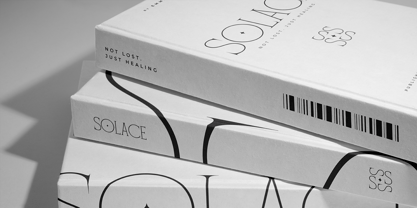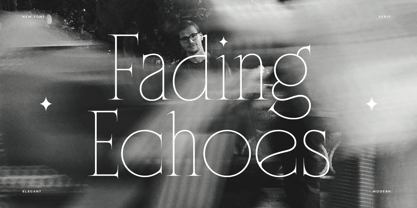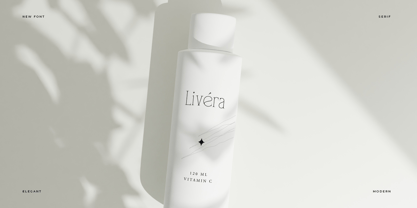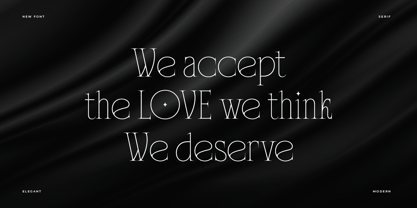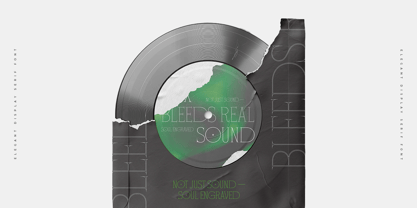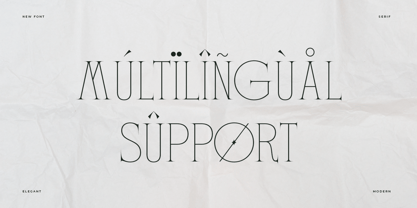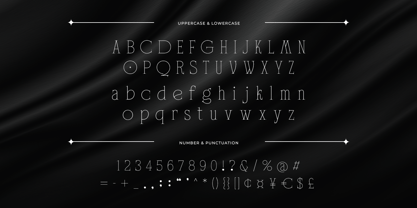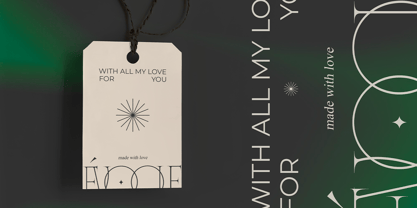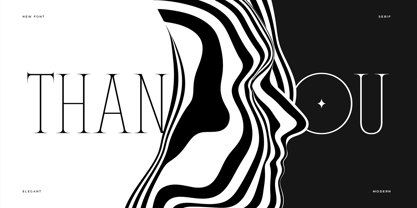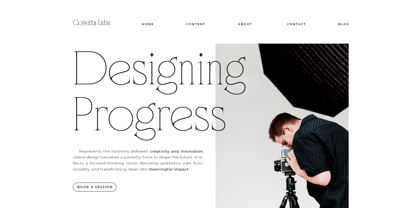
Float Serif
The Float Serif Font Family was designed by Ratna Krismawati and published by Krismagraph. Float Serif contains 1 styles. More about this family
Introducing Float, an elegant display serif font designed with refined lines, sharp serifs, and a luxurious presence. Float is all about sophistication and style, making it the perfect choice for modern brands and impactful headlines. Its tall letterforms and minimal yet striking details make it a versatile font for upscale creative projects.
FEATURES:
- Uppercase
- Lowercase
- Multilingual support
- Ideal for large headlines & displays
- High-contrast elegant serif style
- Punctuation
- Numerial